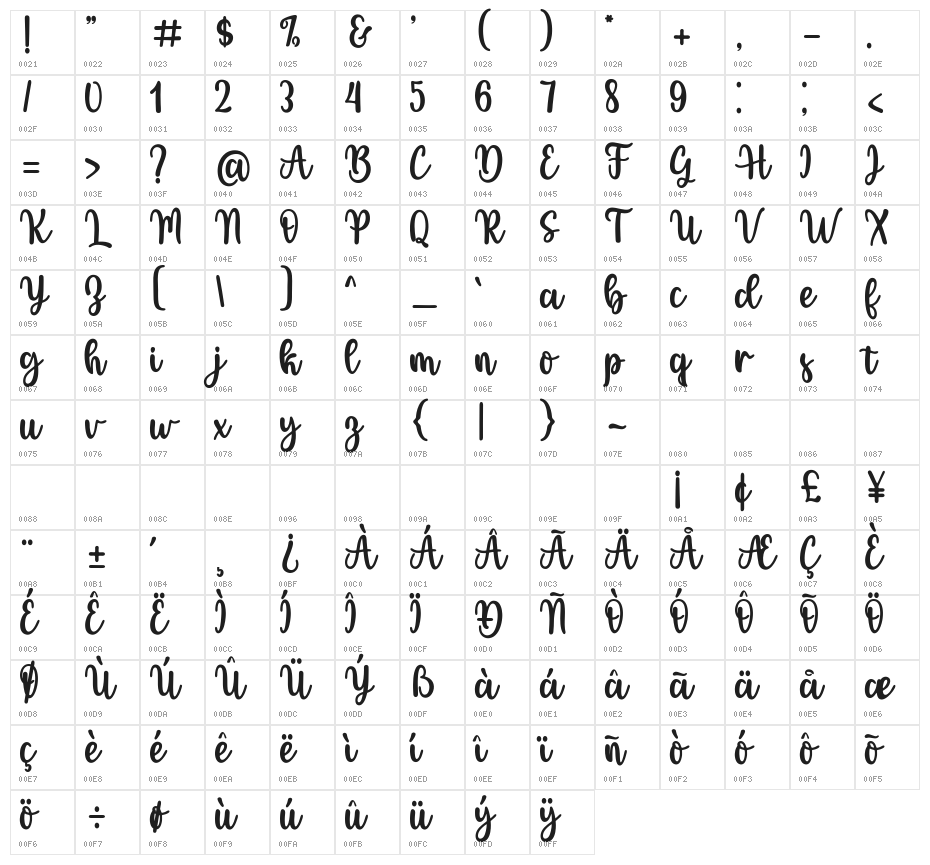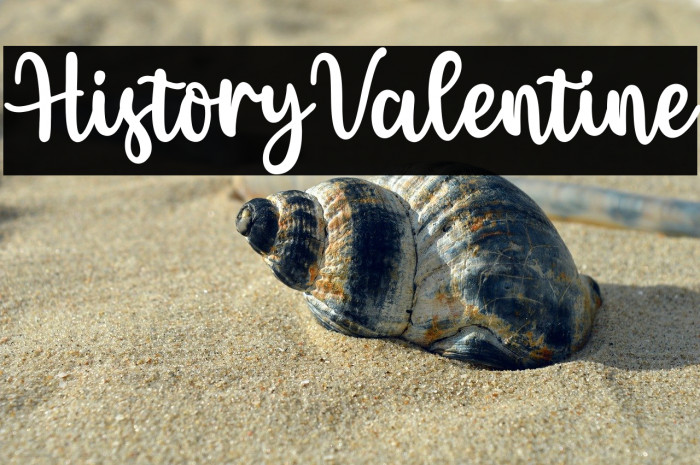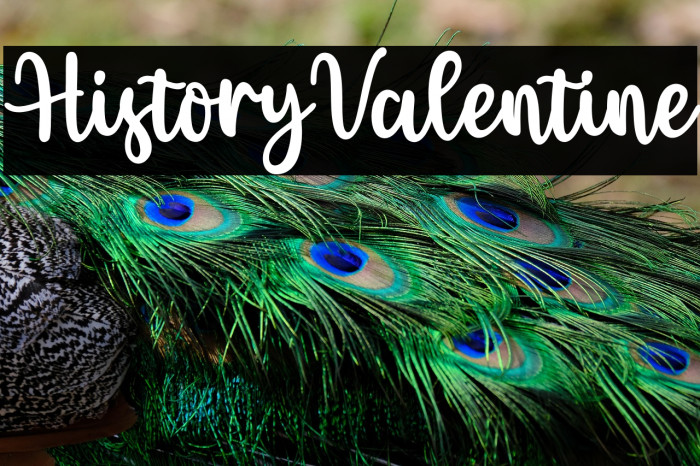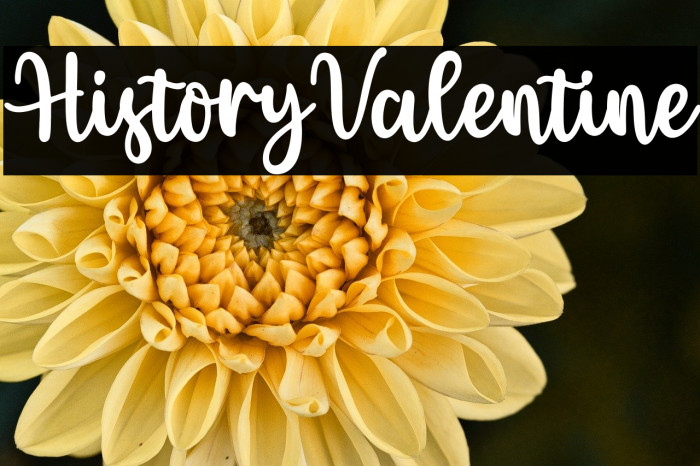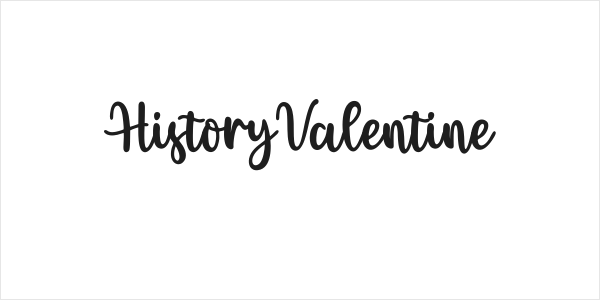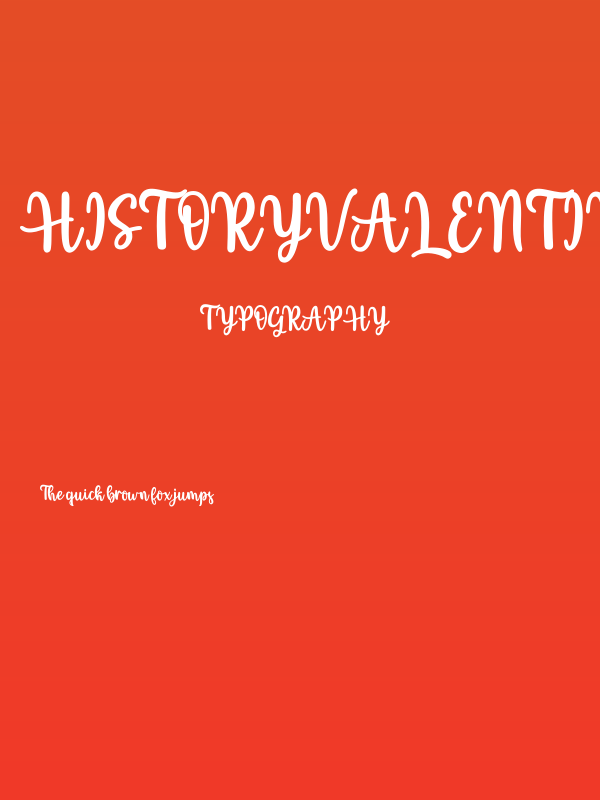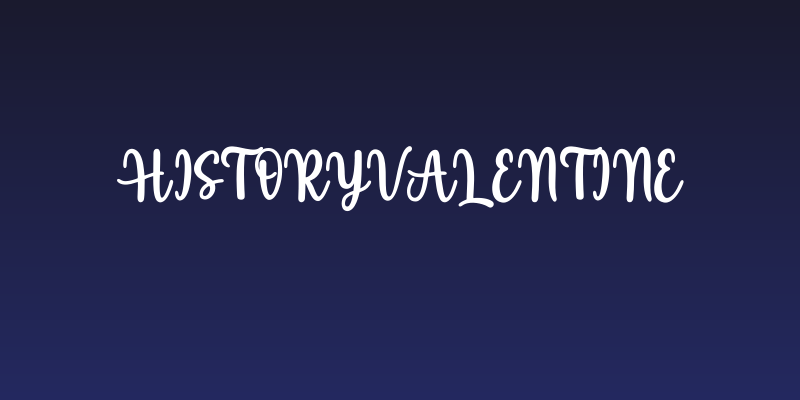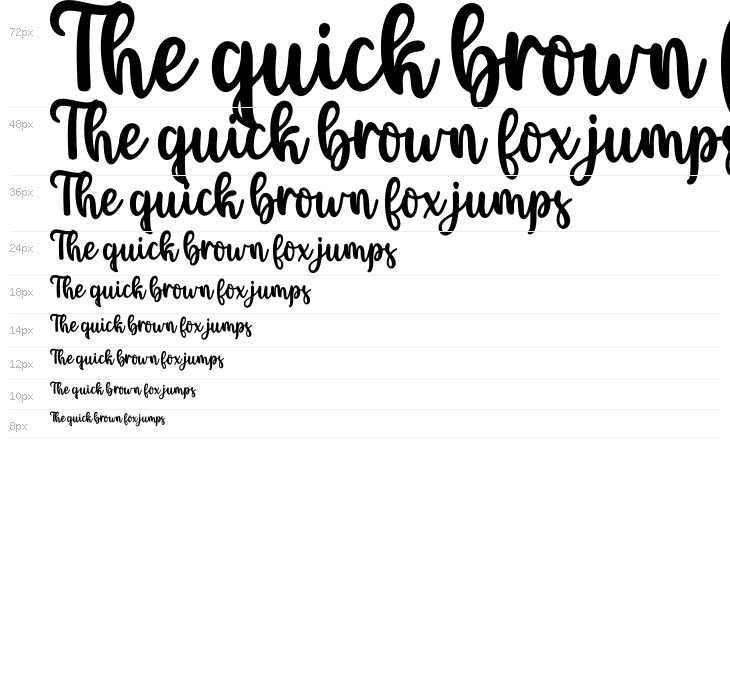
HistoryValentine Font
HistoryValentine Description
This font features a playful and whimsical script style with a handwritten appearance. The letters are connected, creating a fluid and continuous flow, which adds to its charm. The uppercase letters are bold and slightly larger than the lowercase, maintaining a consistent style throughout. The numbers and special characters are designed to match the overall playful aesthetic, making them suitable for creative and informal projects. The strokes are thick, providing a strong presence on the page, while the rounded edges soften the overall look, adding a friendly and approachable feel.
| Proposed Projects | Ideal for greeting cards, invitations, playful branding, and social media graphics. |